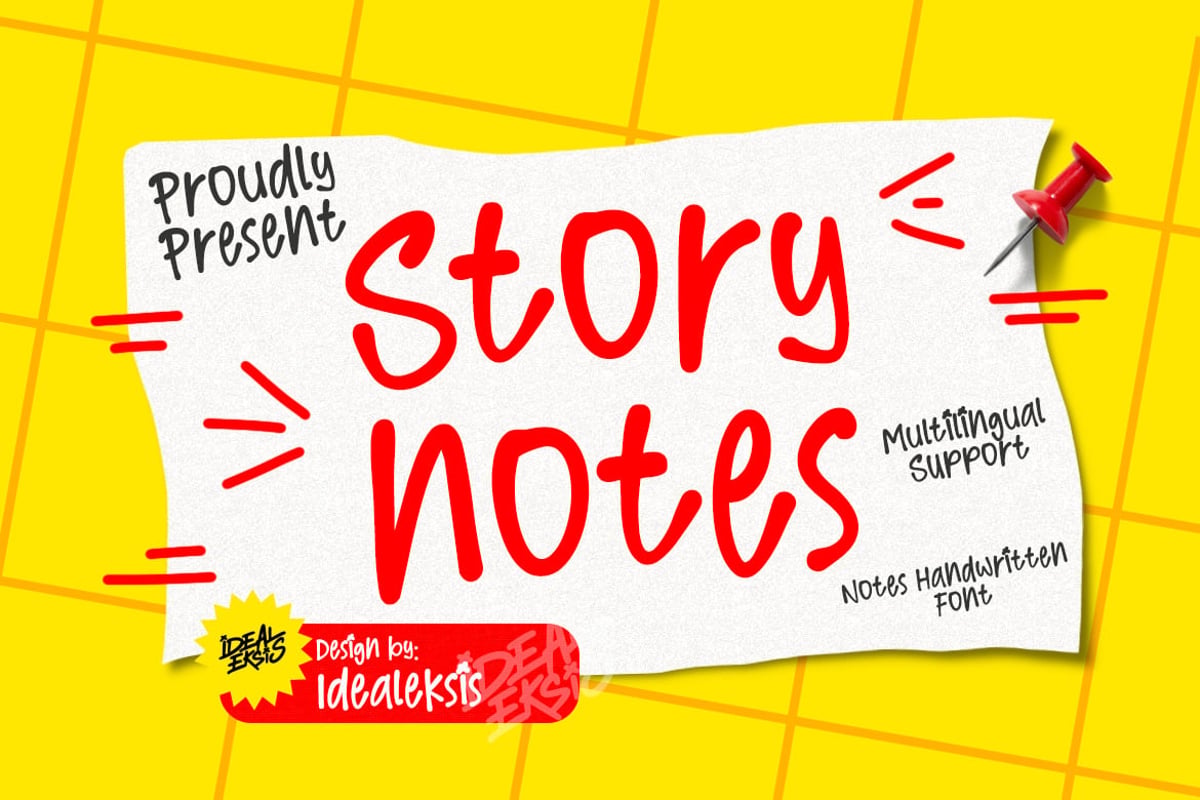
Story Notes - Notes Handwritten Font
Transform your designs with Story Notes, a delightfully casual handwritten font that brings authentic marker-style charm to any project.
This endearing typeface captures the natural flow of casual penmanship with its rounded terminals and consistent stroke weight. The slightly bouncy and organic letterforms create a welcoming, approachable aesthetic that feels genuinely personal and handcrafted.
With excellent legibility and an informal structure, Story Notes excels in creative applications where you want to add a human touch. It's ideally suited for journaling projects, greeting cards, educational materials, and social media content that needs to feel warm and relatable.
- Multilingual Support
- Ligatures
- Numerals
- Punctuation